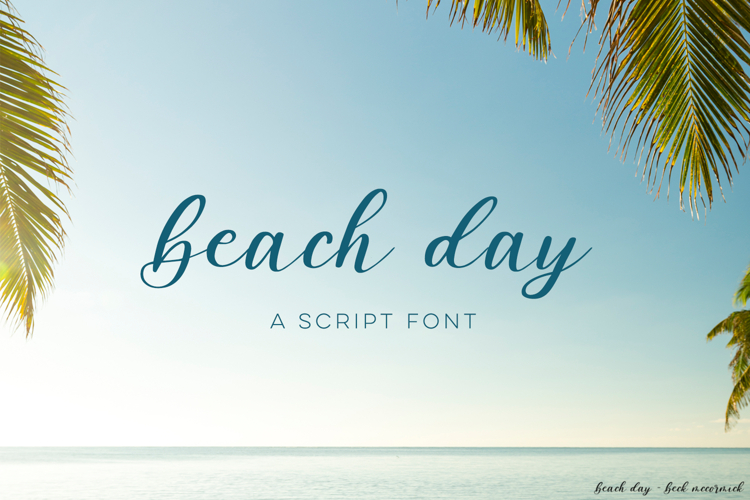
Meet Beach Day Script - Beach Day is a lovely cursive font, casual and effortless, just like a real beach kinda day.
Beach Day is best for:
- header elements that need a feminine touch
Beach Day includes:
- special flourished characters - f, g, h, j, y - and common ligatures - cr, er, ff, ll, or, tt